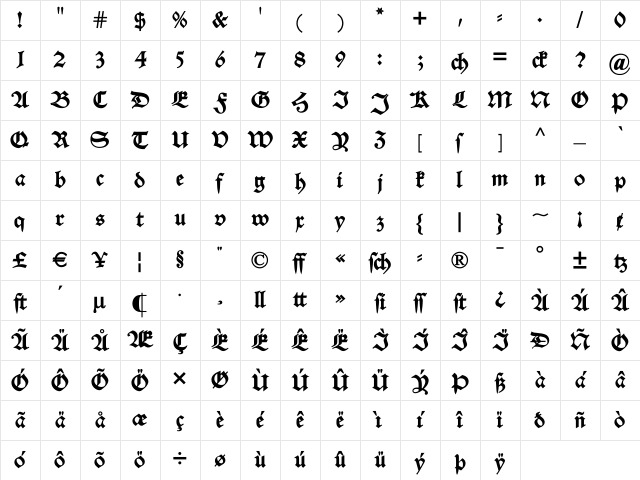
Alte Schwabacher DemiBold
Style: DemiBold
Designer: Dieter Steffmann
Design Context for Alte Schwabacher
Alte Schwabacher is a composed and adaptable typeface that performs quietly and consistently across a wide range of design contexts. Its bold stroke weight gives it real presence on the page.